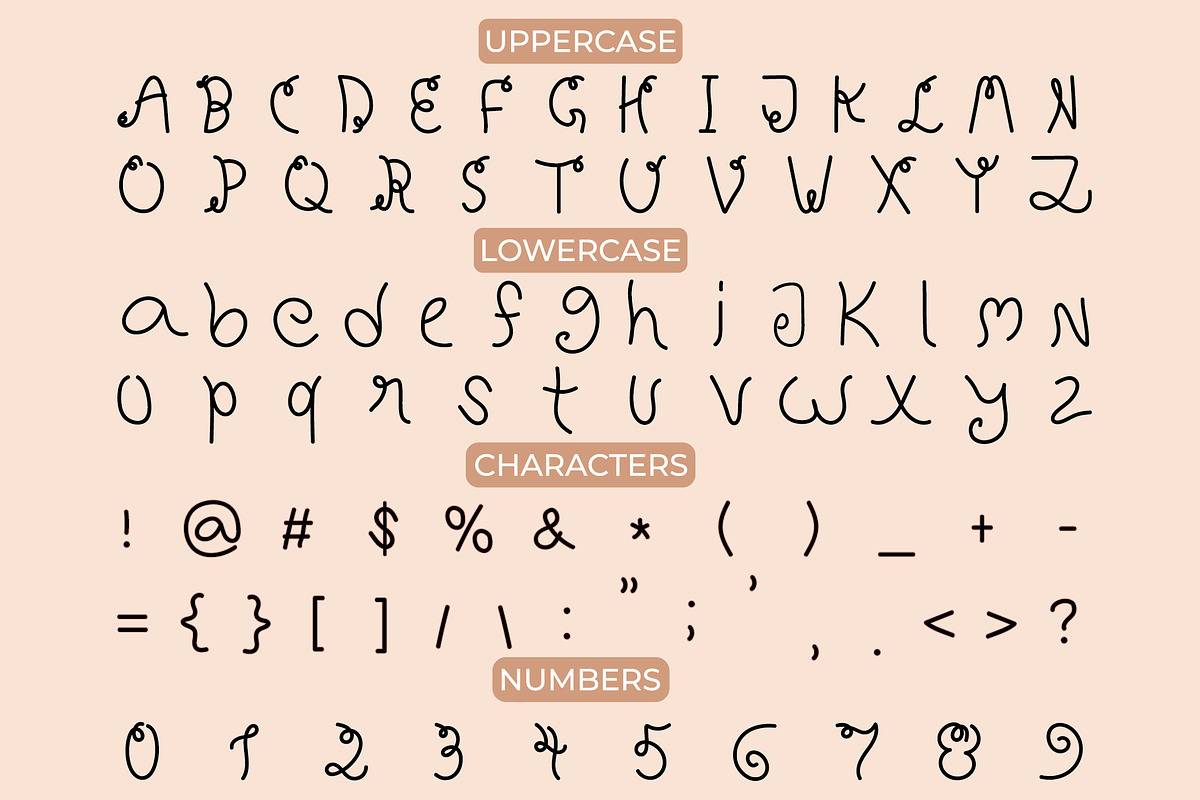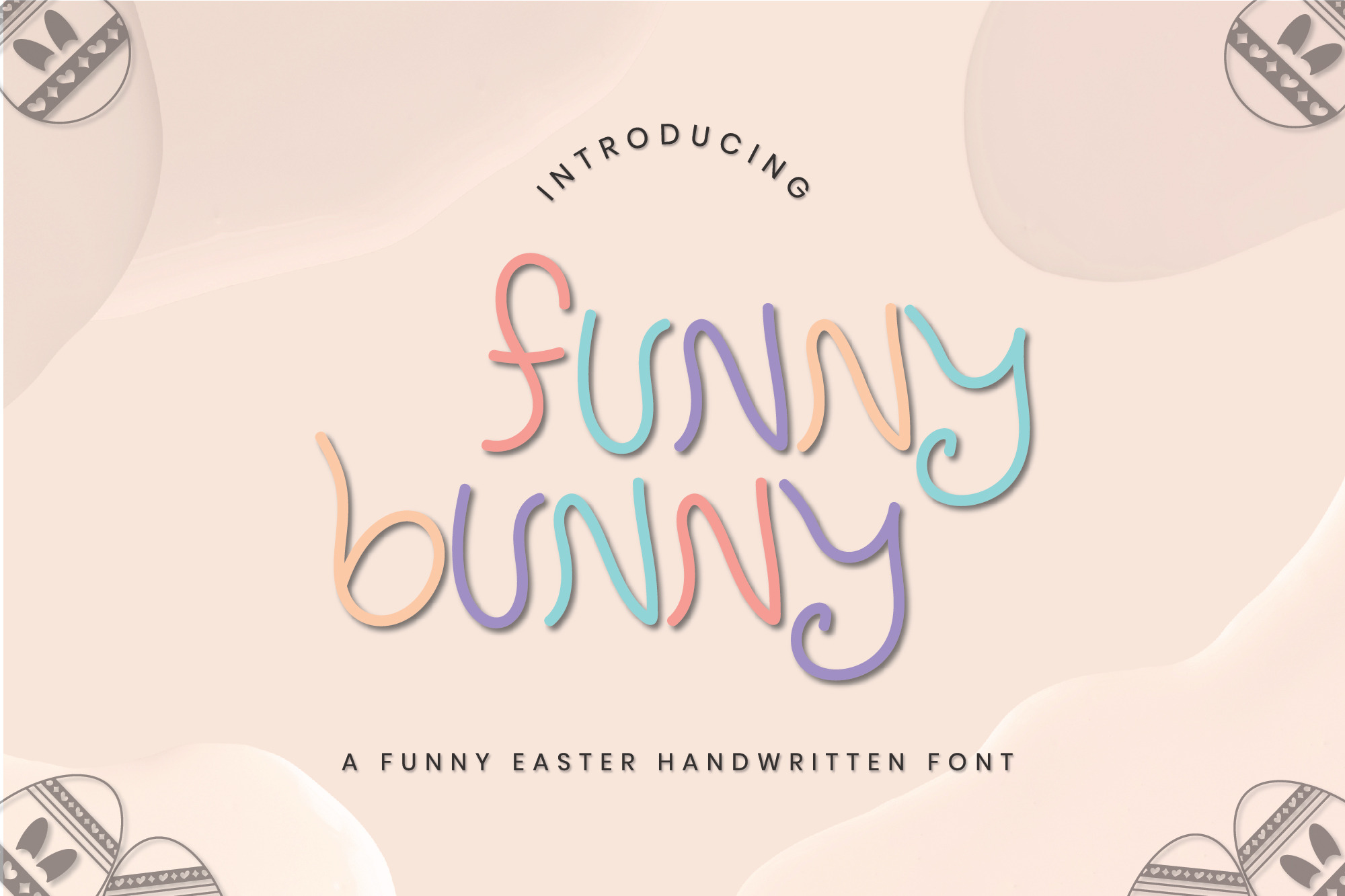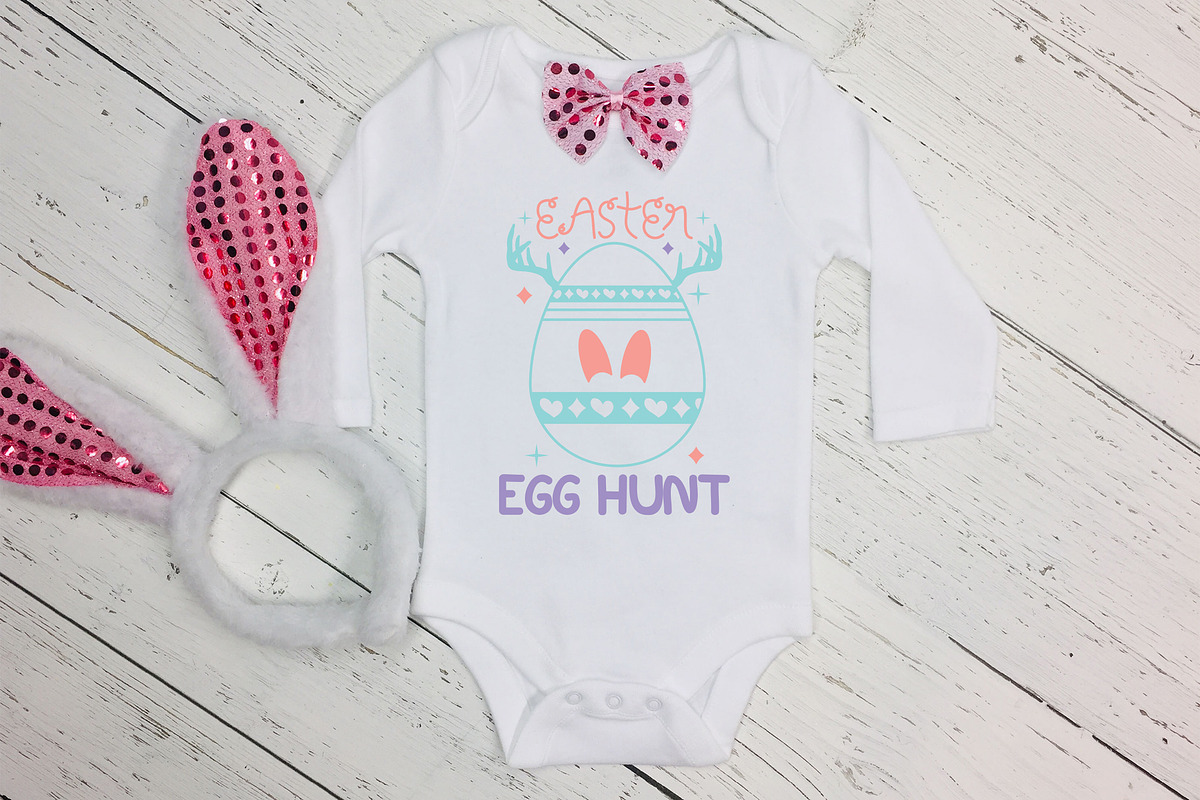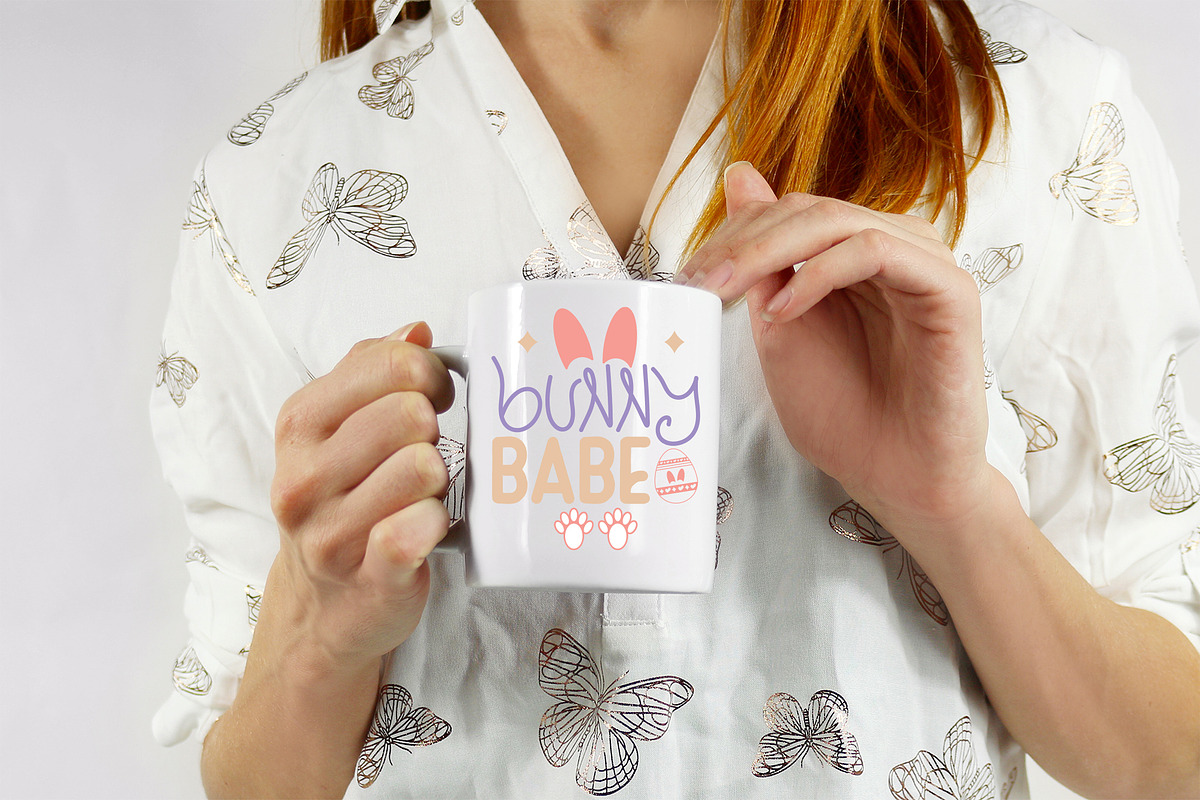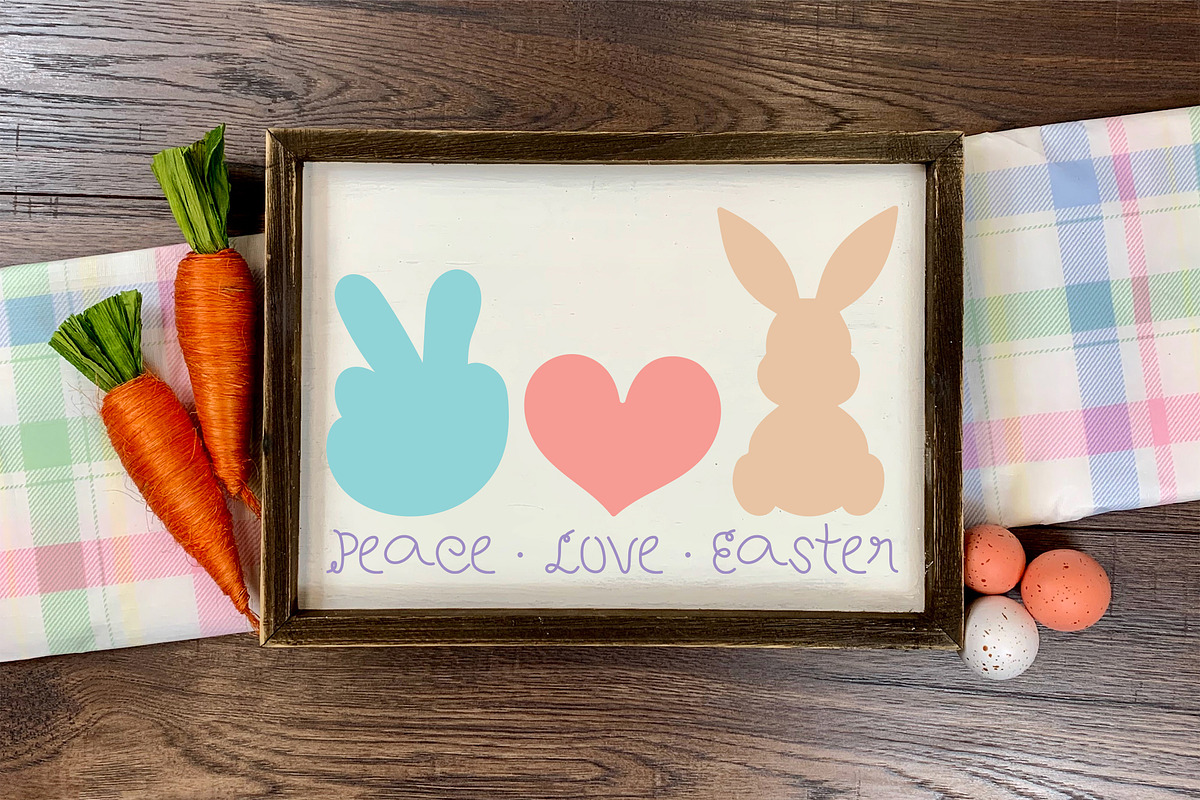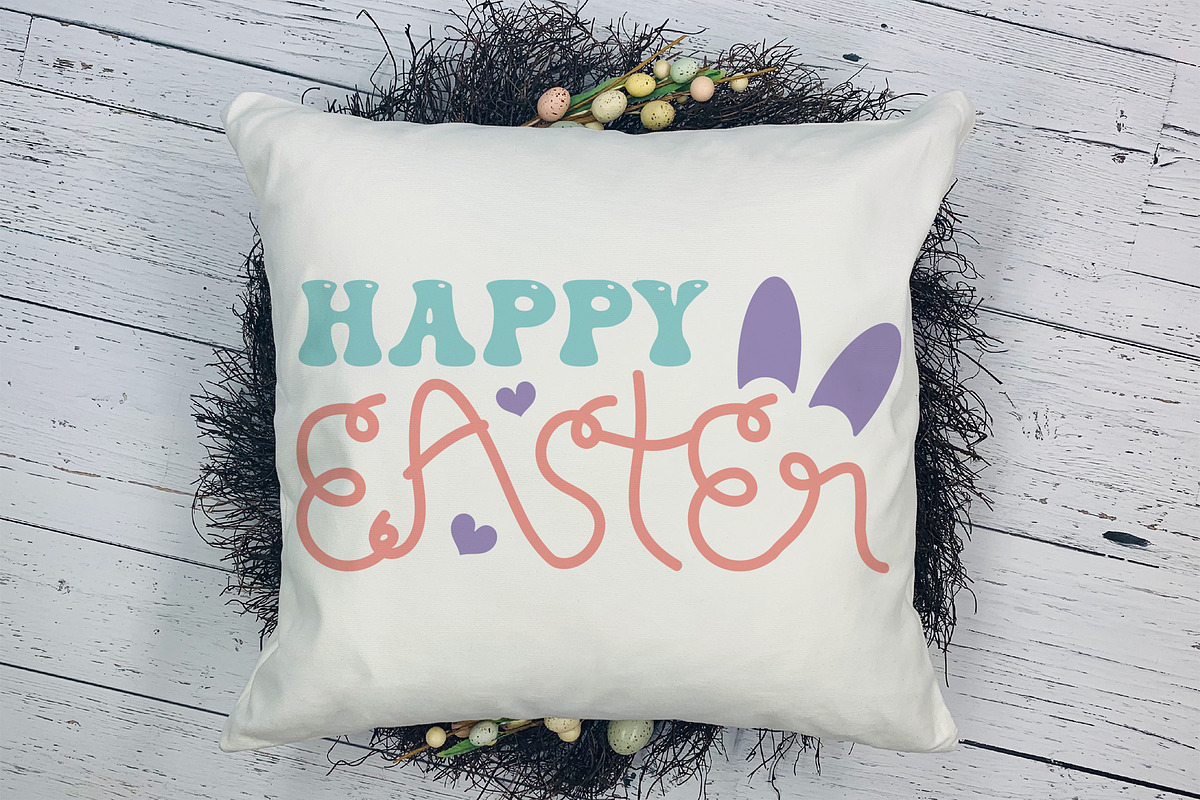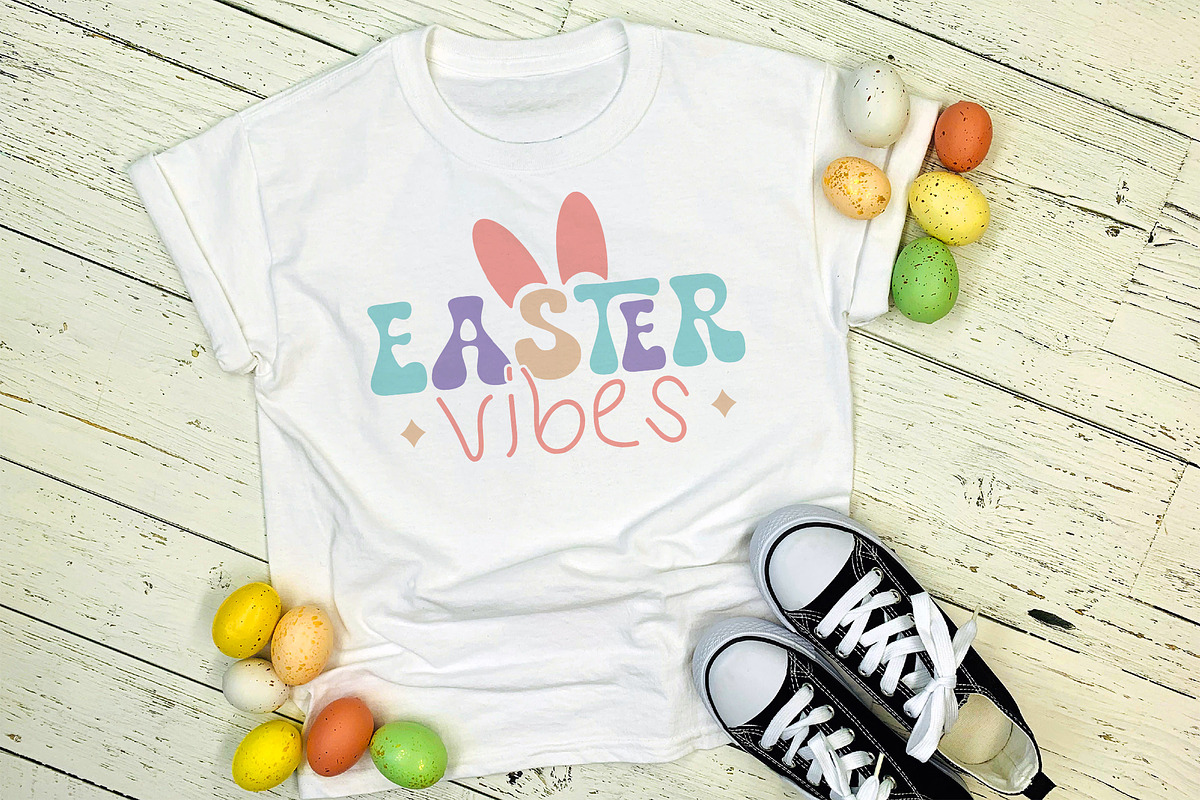
Easter Funny Bunny Handwritten Font
Funny Bunny is a clean, cute, and modern handwritten font created to add a playful touch to your Easter-themed projects. Whether you’re making t-shirts, mugs, greeting cards, magazines, packaging, posters, shopping bags, or book covers, this font brings a unique style that exudes warmth. Its versatility makes it perfect for a wide range of creative ventures, from DIY crafts to professional design projects.